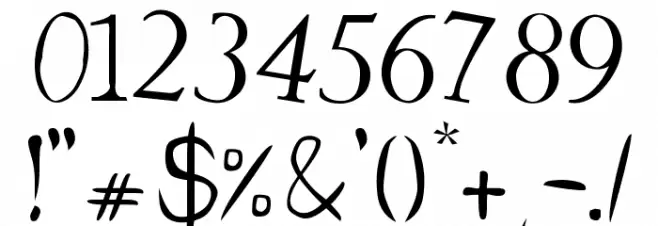
Recycled Bit Font
Recycled Bit Description
This font features a playful and quirky design, characterized by uneven strokes and a hand-drawn appearance. The uppercase letters have a distinctive irregularity, with varying line thickness that adds a dynamic feel. The lowercase letters maintain this whimsical style, complementing the uppercase set with a consistent yet varied look. The numerals are bold and slightly exaggerated, enhancing the font's unique personality. Special characters are creatively styled, fitting seamlessly with the overall aesthetic. This font's charm lies in its imperfect, organic shapes, making it ideal for projects that require a touch of individuality and creativity.
A playful, hand-drawn font with irregular strokes and a quirky style from Uncategorized fonts.
- Proposed Projects: Ideal for children's books, creative posters, casual branding, and artistic invitations.
- Use Case: Headlines, Logos, Creative projects